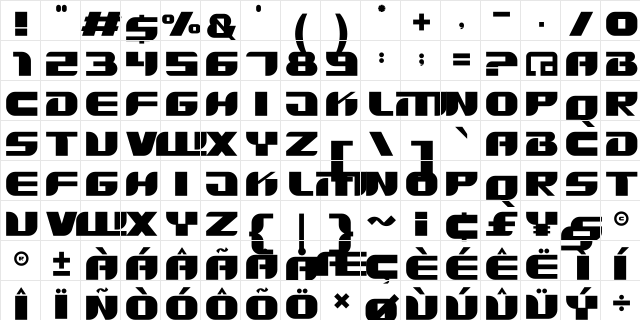
Lixdu Regular Free Font
Lixdu Regular
Design Context for Lixdu
Lixdu is a composed and adaptable typeface that performs quietly and consistently across a wide range of design contexts.
Pro Tip: Use Lixdu in both headline and body roles to test its range before committing to a single application.